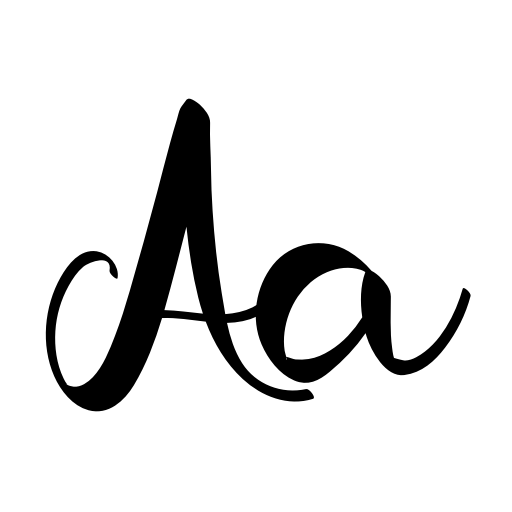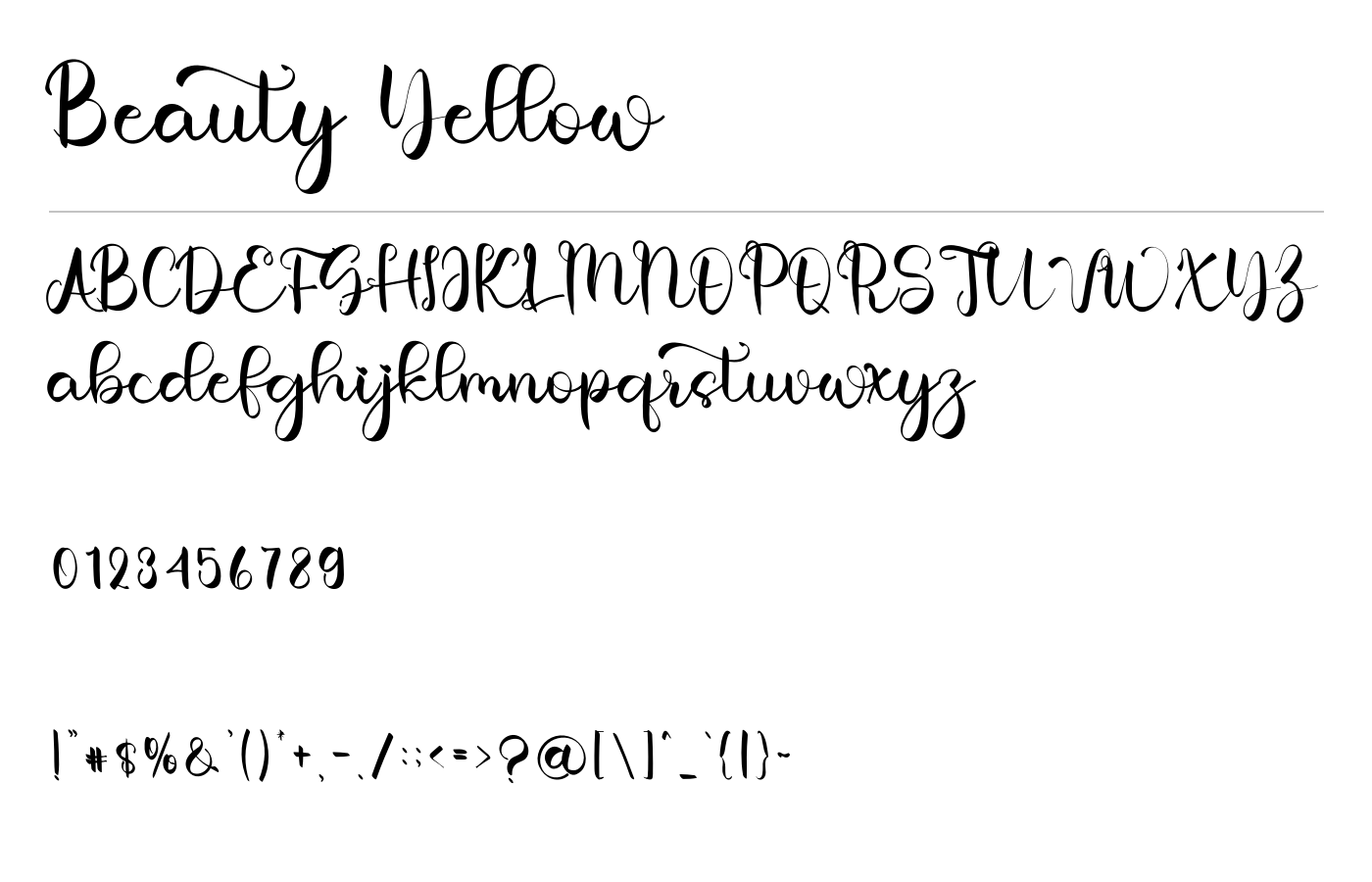
Beauty Yellow is an elegant script font featuring fluid, hand-drawn strokes with a playful yet sophisticated charm. Its smooth curves and decorative swashes give it a warm, personal touch perfect for branding, invitations, and stylish headlines, conveying a friendly and creative vibe. This font works beautifully in fashion, lifestyle, and artistic projects where a graceful, handcrafted feel is desired.
Beauty Yellow Font
About Beauty Yellow Font